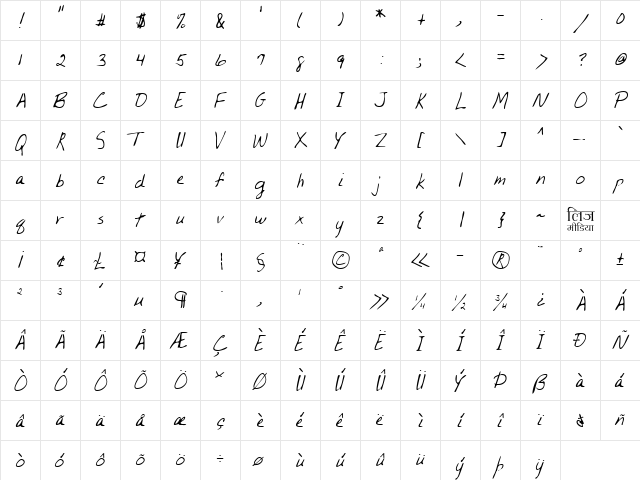
LEHN155 Regular
Design Context for LEHN155 Typeface
LEHN155 takes a measured approach to typography — its balanced proportions and neutral character make it a reliable workhorse for both digital and print work.